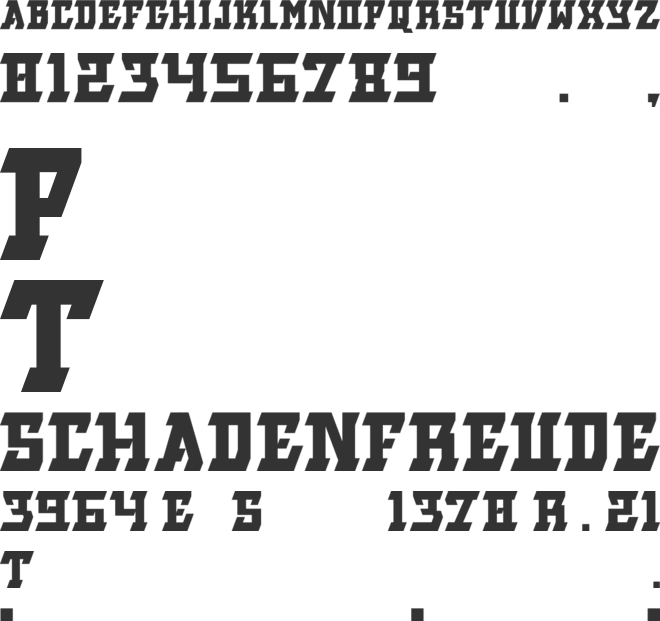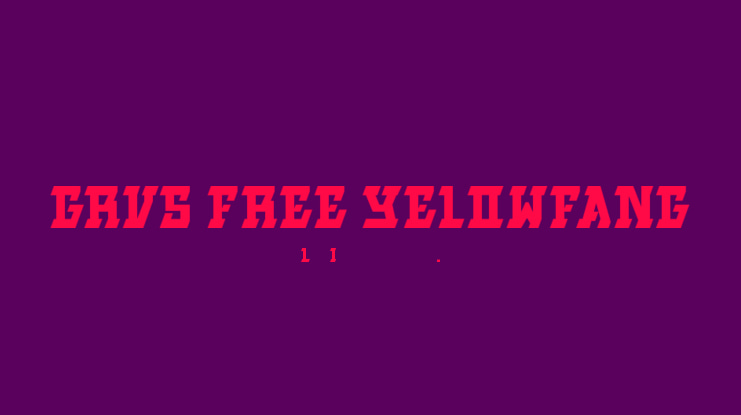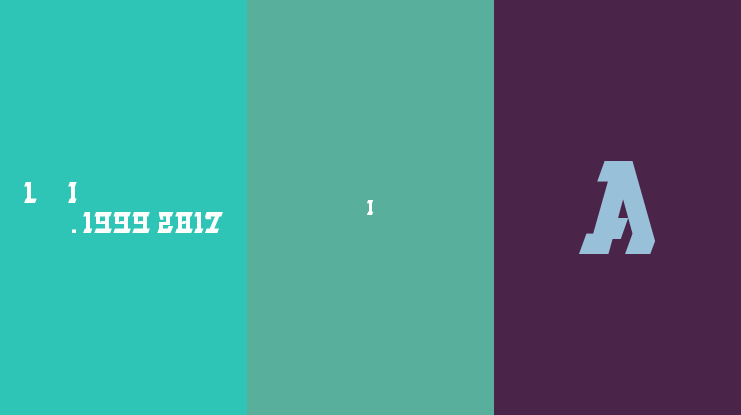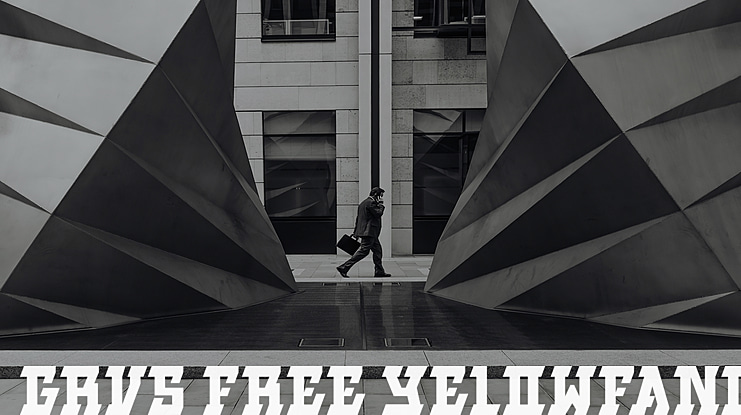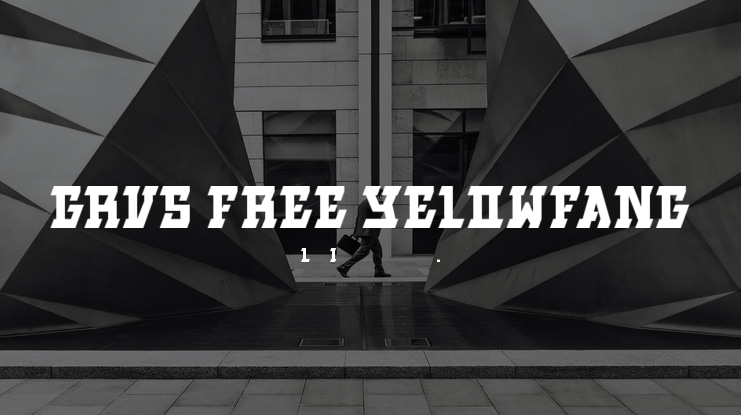
GRVS-FREE-YELOWFANG Font
DETAILS Introducing, a "YELLOW WOLF" Font, This the second font product of GRVS Design. This font Suitable for Sport, Esport and Twitch logo. This font only include a capital letters and numbers
Available into uppercase and numeral. Also suitable to t-shirt, hat, or everything related about merchandise for Sport or eSport.